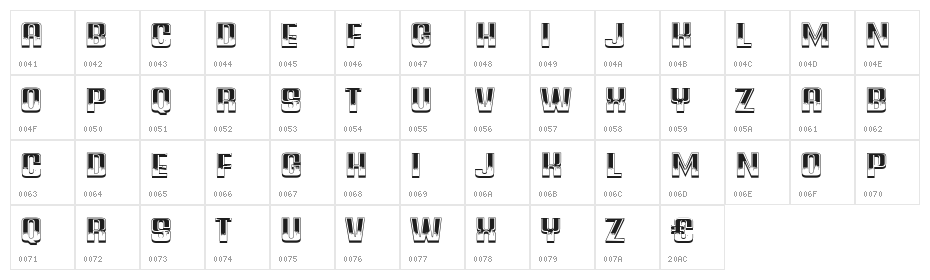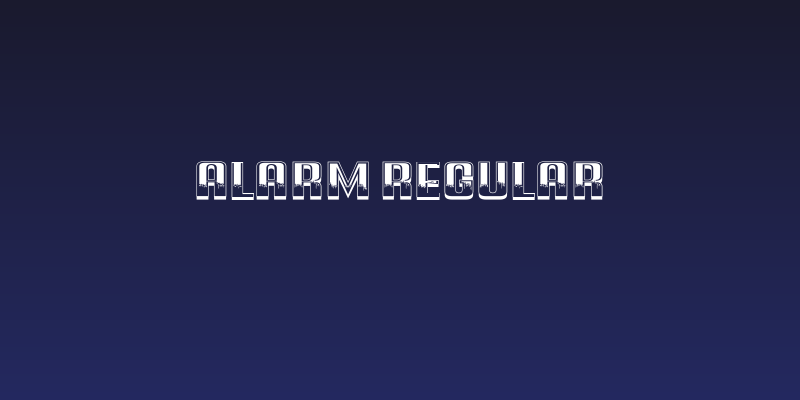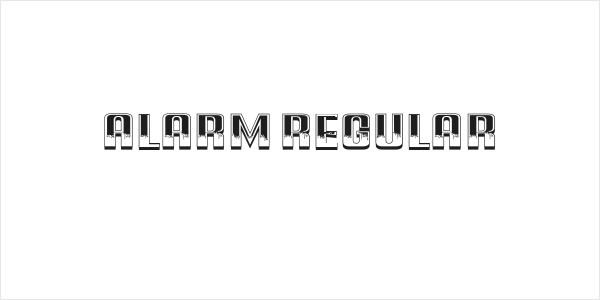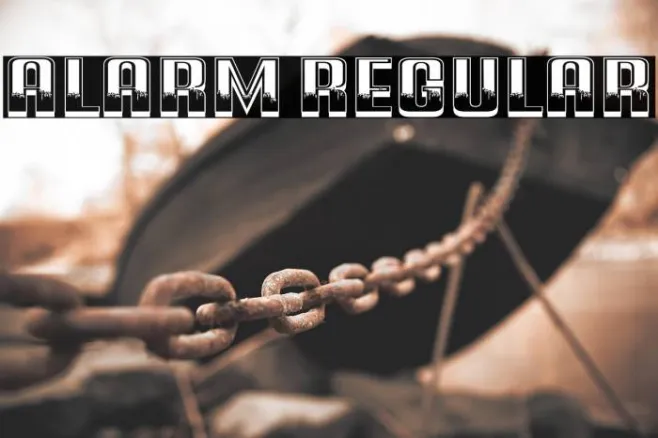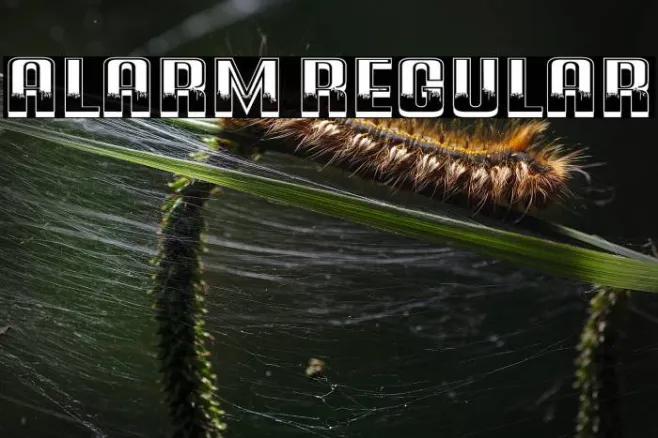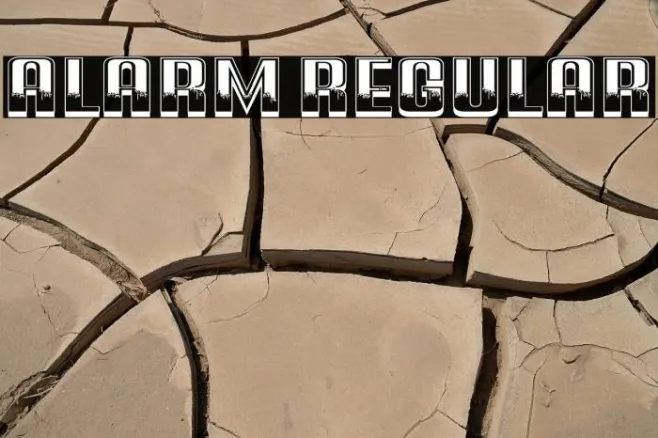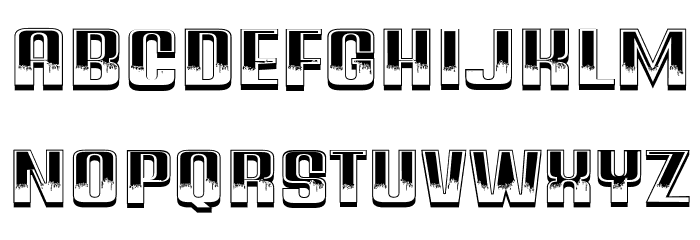
Alarm Regular Font
Alarm Regular Description
This font features a bold, decorative style with a distinct 3D effect, characterized by its thick, block-like letters and shadowed outlines. The uppercase letters are uniform in height, with a strong presence that commands attention. The design incorporates a unique distressed texture within each character, adding a rugged, industrial feel. The font's structure is geometric, with sharp angles and clean lines, making it suitable for impactful visual statements. The spacing between characters is tight, enhancing its compact and cohesive appearance. This font is ideal for projects that require a bold and eye-catching typeface.